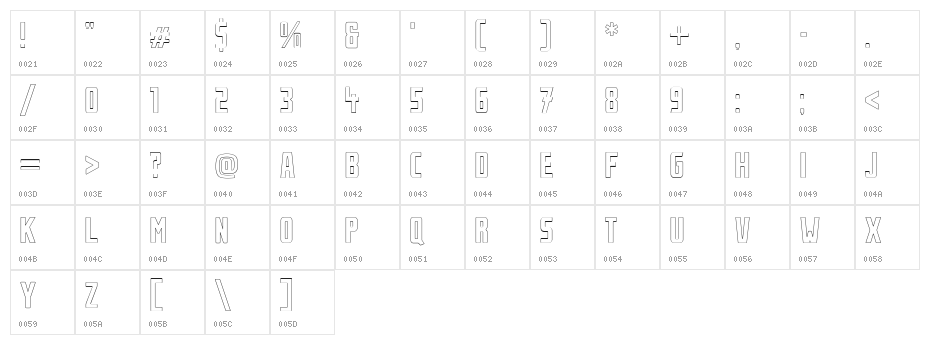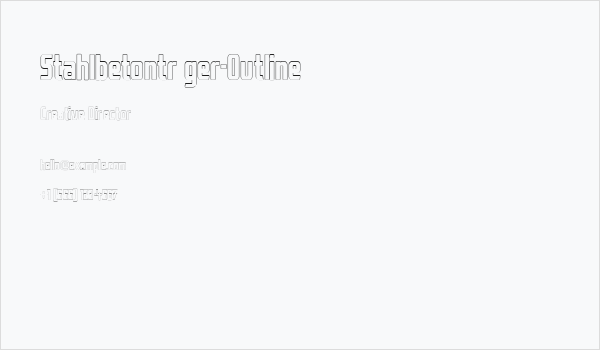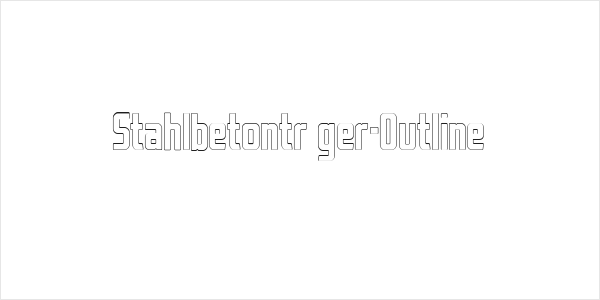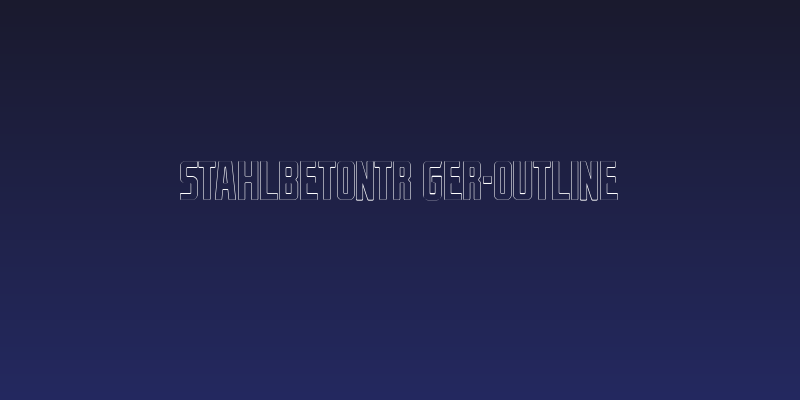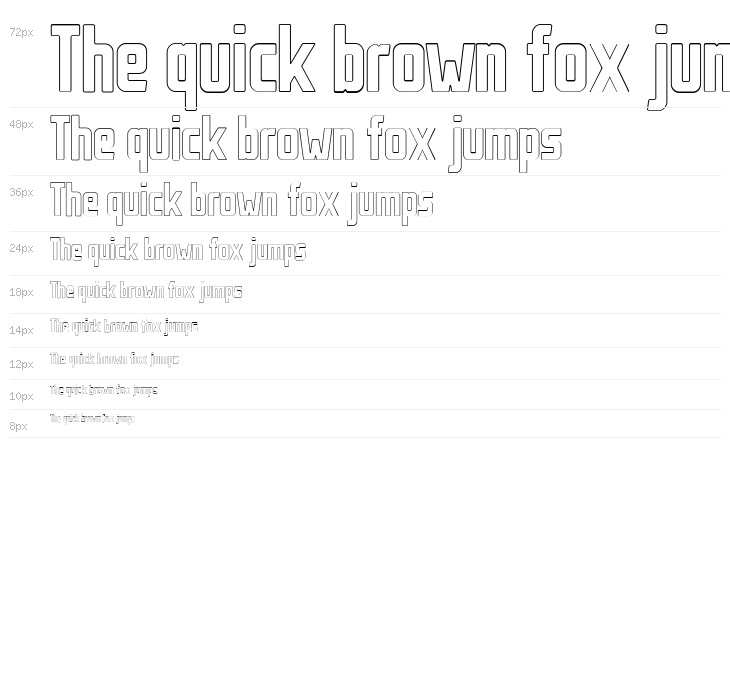
StahlbetontrŠger-Outline Font
StahlbetontrŠger-Outline Description
This font features a bold, geometric outline style that emphasizes its modern and industrial aesthetic. The uppercase and lowercase letters are uniformly structured, with clean, sharp edges and a consistent stroke width that creates a cohesive look. The numerals and special characters maintain the same design principles, ensuring a harmonious appearance across all glyphs. The outline design gives it a unique, eye-catching quality, making it suitable for projects that require a strong visual impact. Its structured form and clear legibility make it versatile for various design applications.
| Proposed Projects | Ideal for branding, posters, signage, and any project needing a strong, modern visual impact. |